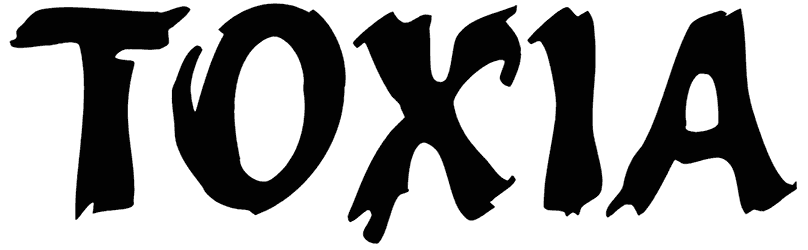
Voodoo Spirits Font
If you are in search of a tool to evoke the emotions of your audience, Voodoo Spirits can bring you unlimited creative ideas. This scary font, with its chaotic letters, can create a harsh yet distinctive style across the page.
The letters of Voodoo Spirits seem to be scratched on the wall and can help highlight the feeling of fear in movie posters or social media and protest posts.
Designed by: No Images Fonts